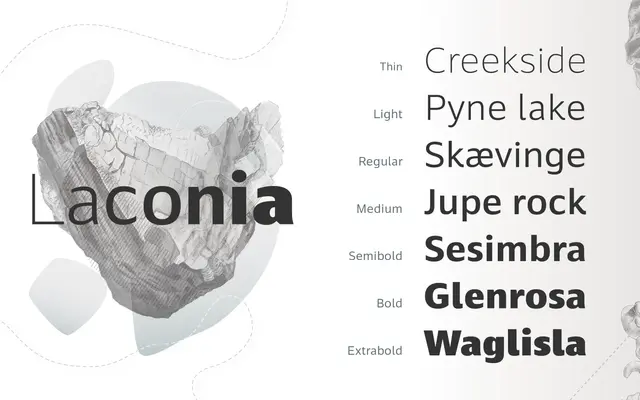
Laconia
Tiro Typeworks · Ross Mills
A 14-style humanist sans from Tiro Typeworks, designed by Ross Mills with broad Latin extended character coverage across seven weights with matching italics.
Designed by Ross Mills with assistance from Anna Štepanovská and Paul Hanslow, Laconia runs from Thin to Extra Bold with matching italics across 14 styles. The glyph set of 779 characters covers an extensive range of Latin extended scripts, reflecting Tiro Typeworks' characteristic attention to multilingual typesetting. It suits text and editorial work where wide language support is a requirement.
The broad Latin character set with wide language coverage and the balanced weight range suggest a humanist sans design, typical of Tiro Typeworks' approach to text-oriented typefaces with strong typographic craft.